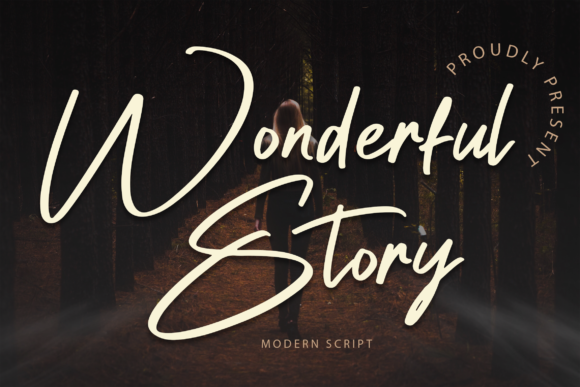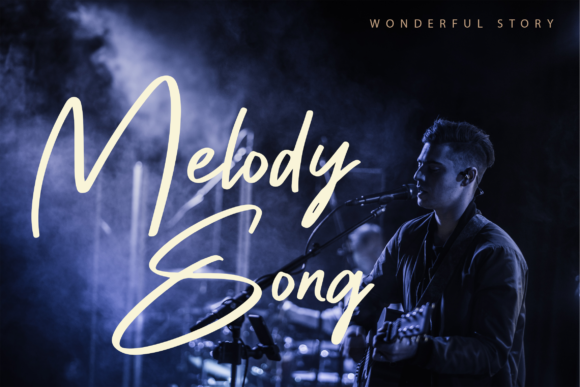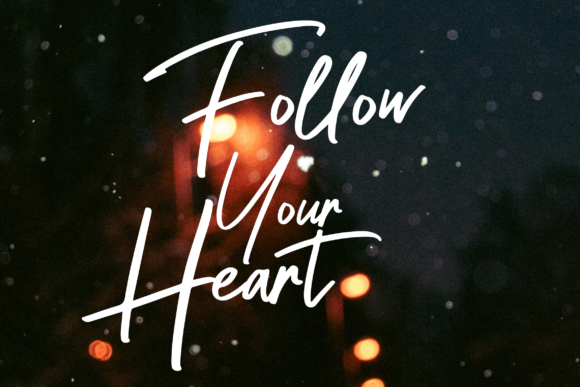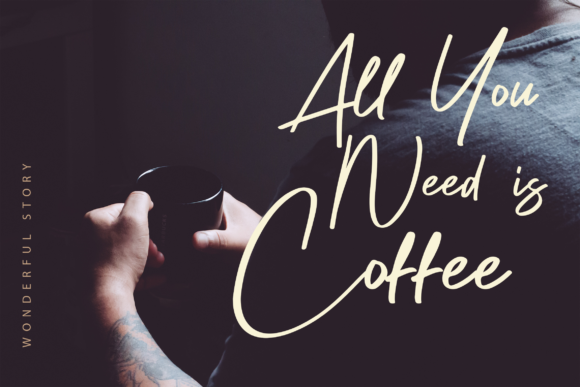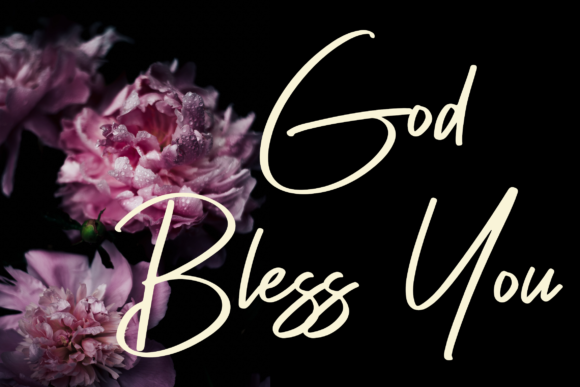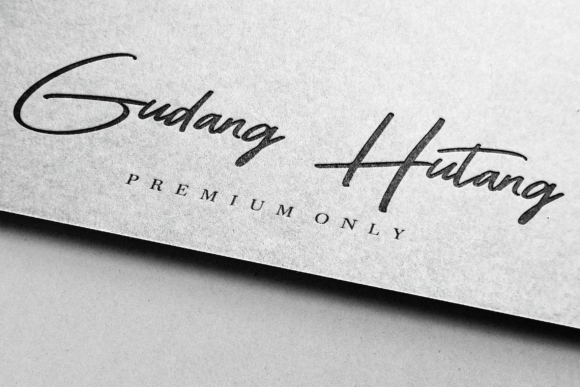
Wonderful Story Font
About Wonderful Story Font
Wonderful Story feels equally charming and elegant. Fall in love with its authentic feel and use it to create gorgeous wedding invitations, beautiful stationary art, eye-catching social media posts, and cute greeting cards.